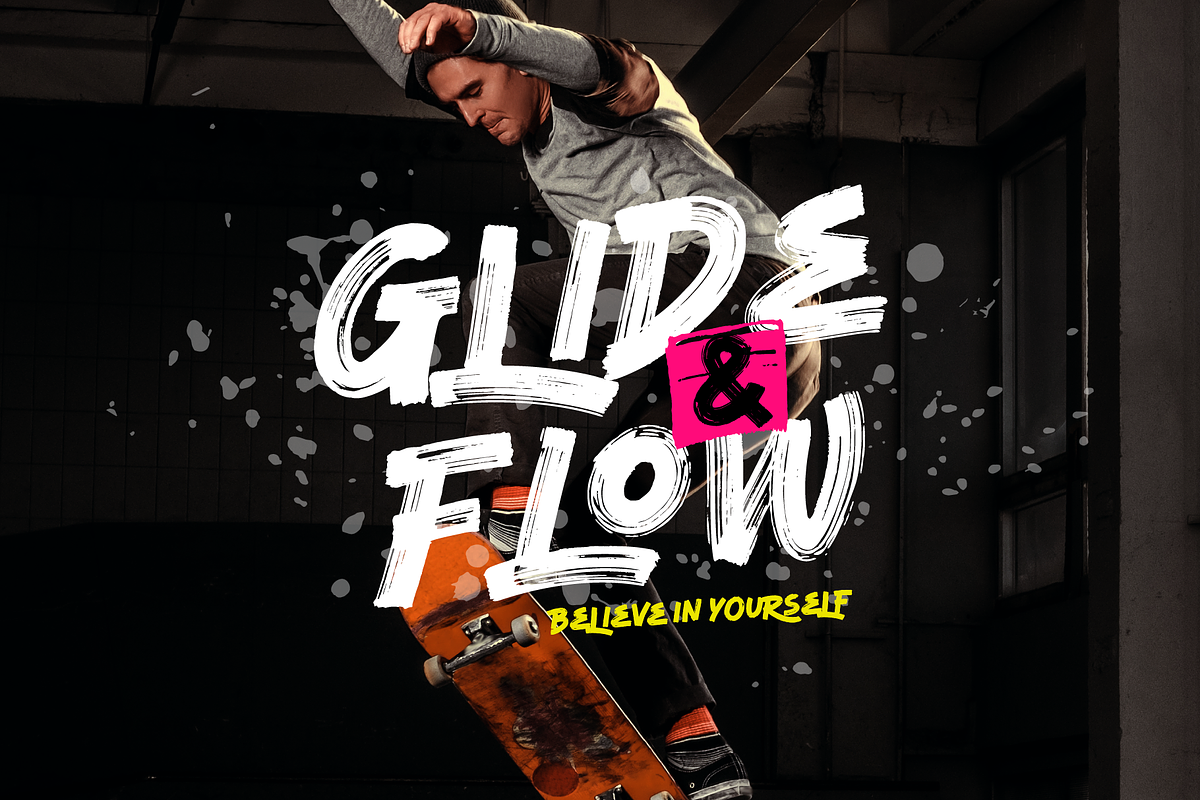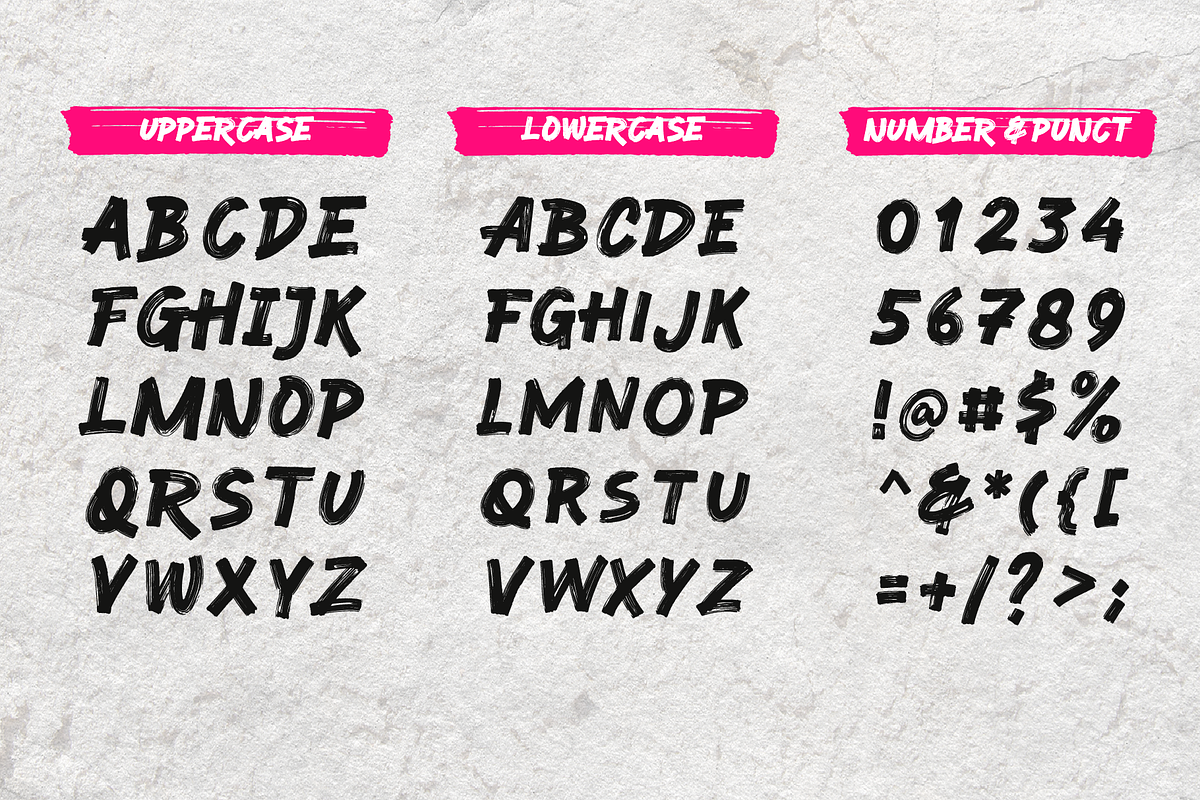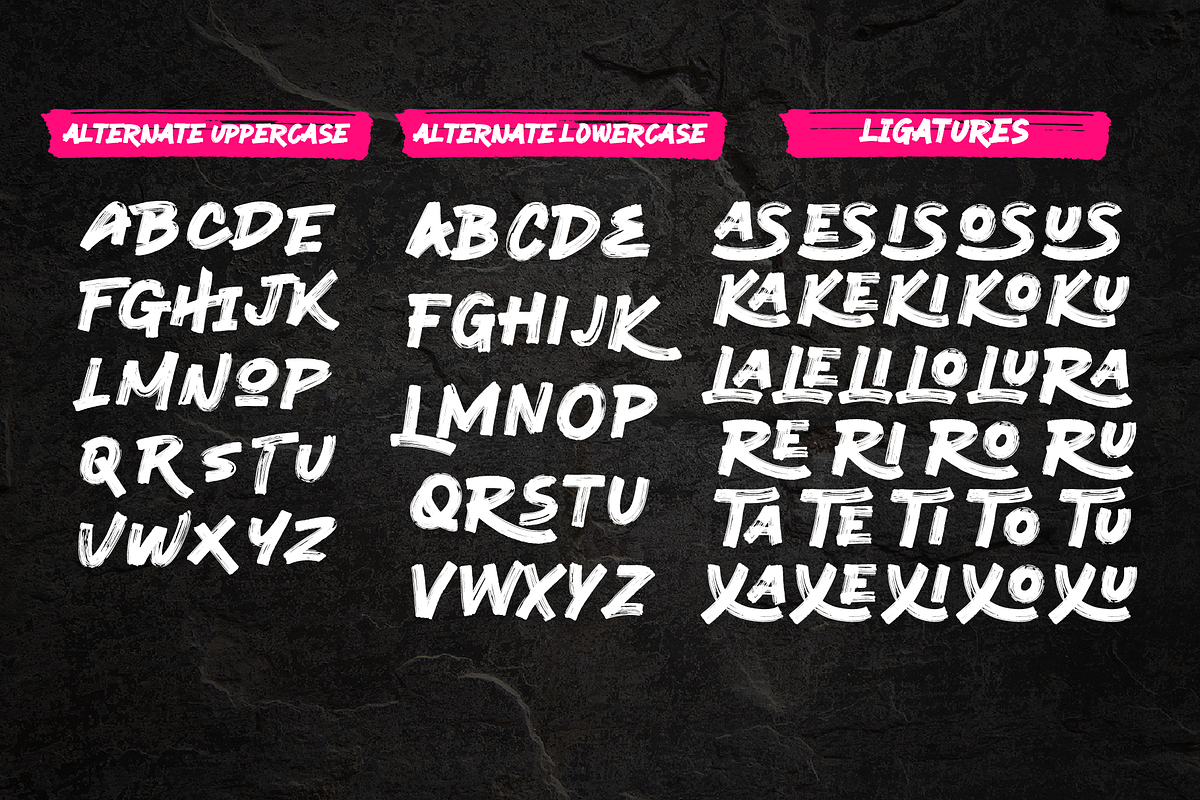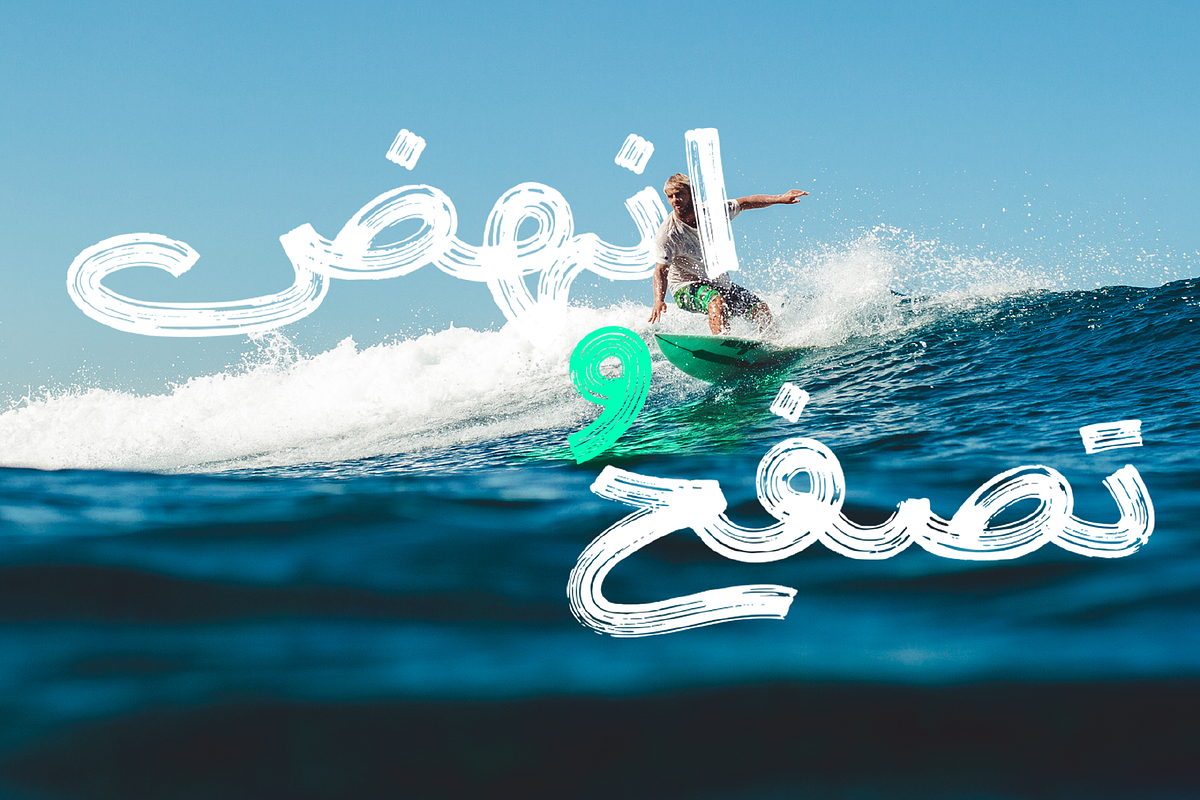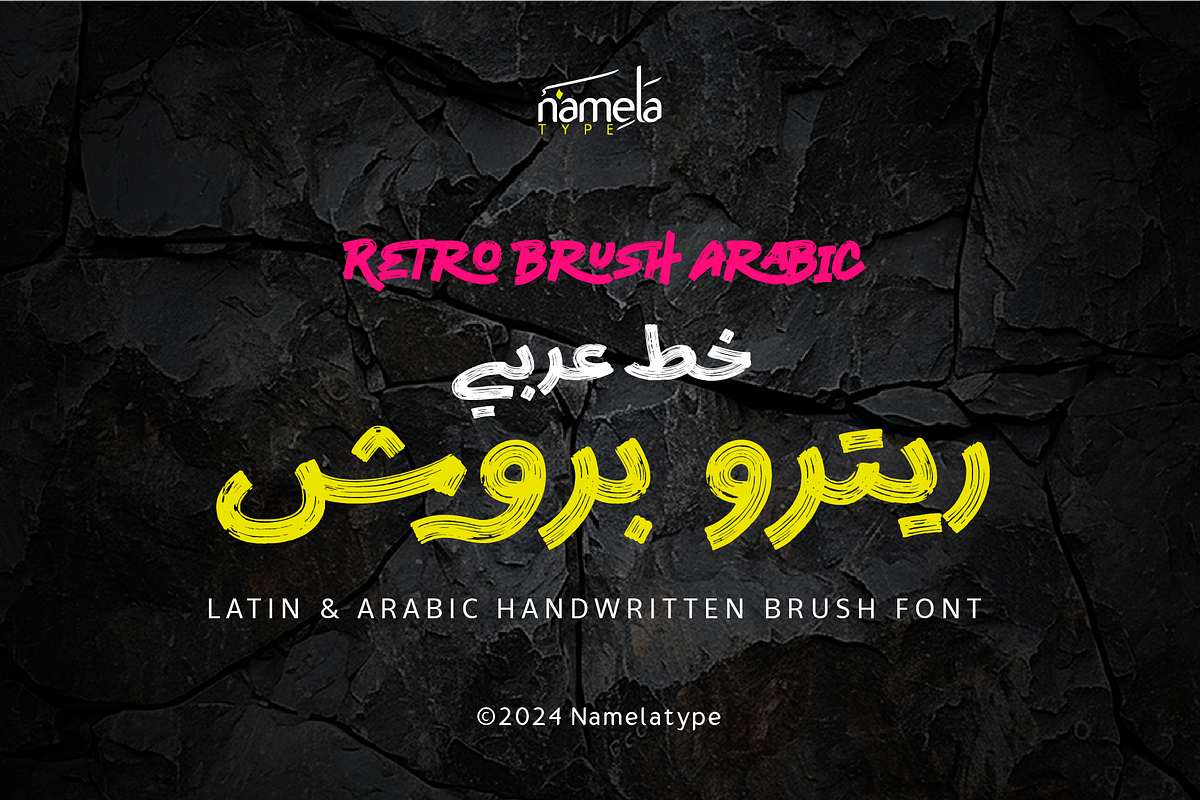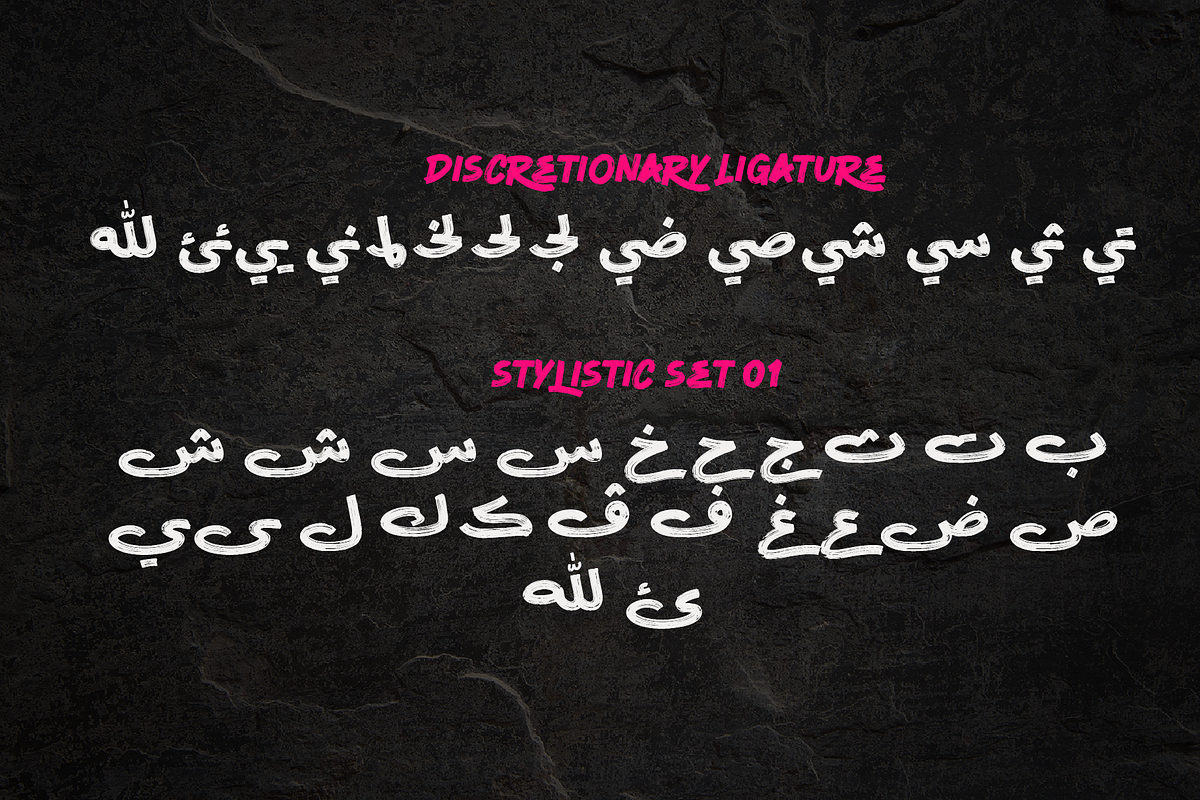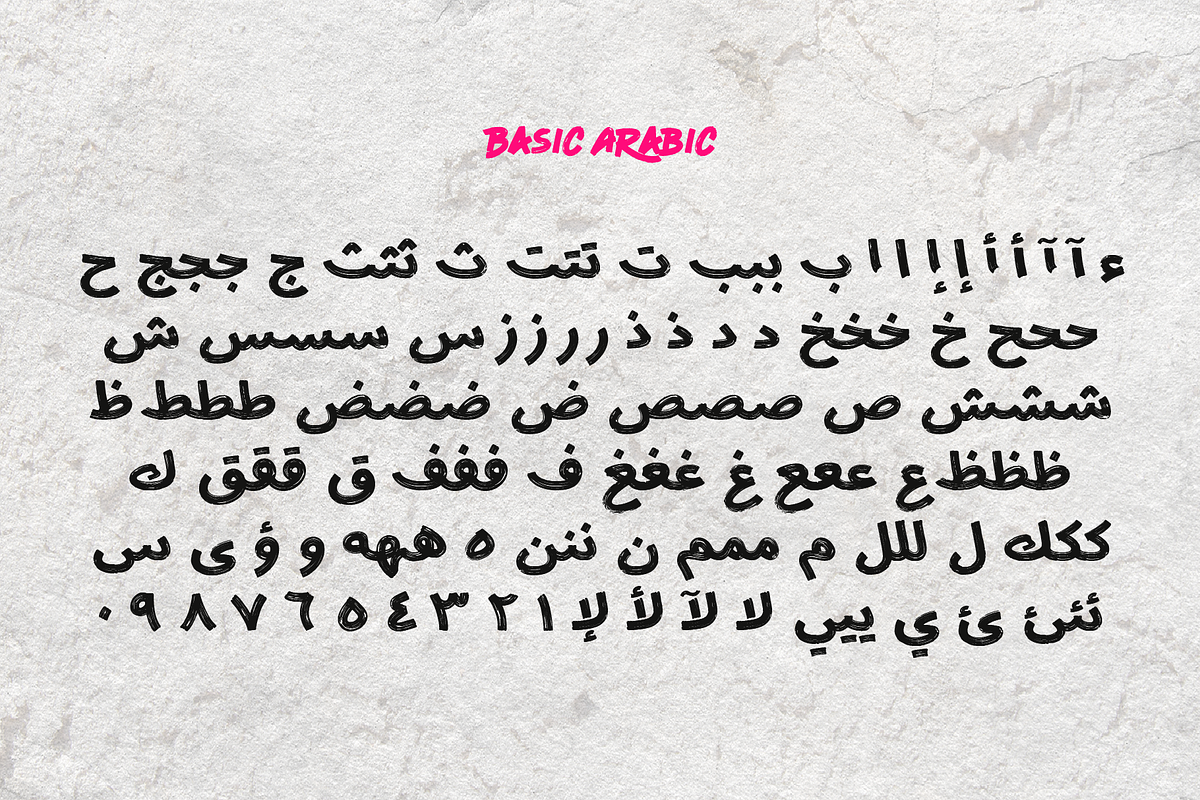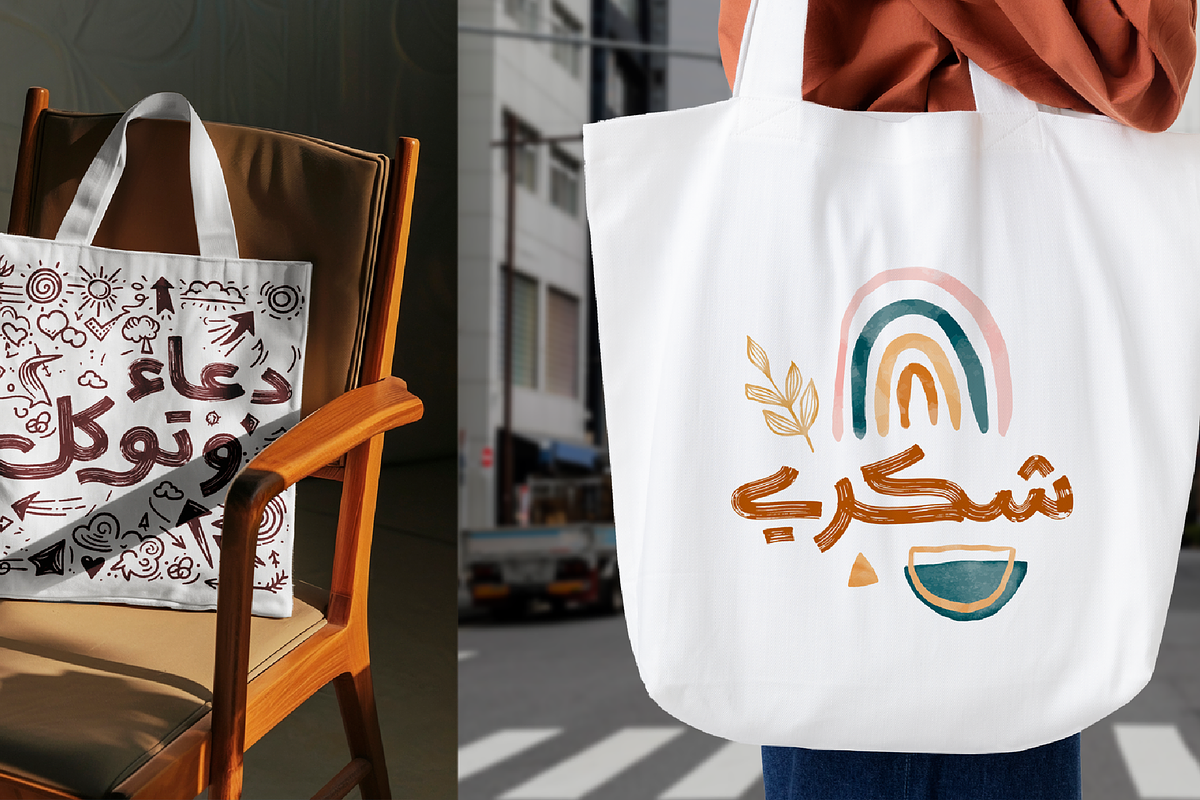
Retro Brush Arabic is a handwritten brush font characterized by its dry brush stroke style, which imparts a delightful texture and fluidity. It includes a variety of alternates and ligatures to enhance its handwritten appearance. This is update version of Retro Brush Font. Includes an extension of the Arabic script
Perfect for use in header text, poster designs, logos, product packaging, merchandise, album covers, and much more.
- It includes a variety of alternates and ligatures to enhance its handwritten appearance.
- Includes an extension of the Arabic script Perfect for use in header text, poster designs, logos, product packaging, merchandise, album cove
- It includes a variety of alternates and ligatures to enhance its handwritten appearance.
- Includes an extension of the Arabic script Perfect for use in header text, poster designs, logos, product packaging, merchandise, album cove
- It includes a variety of alternates and ligatures to enhance its handwritten appearance.